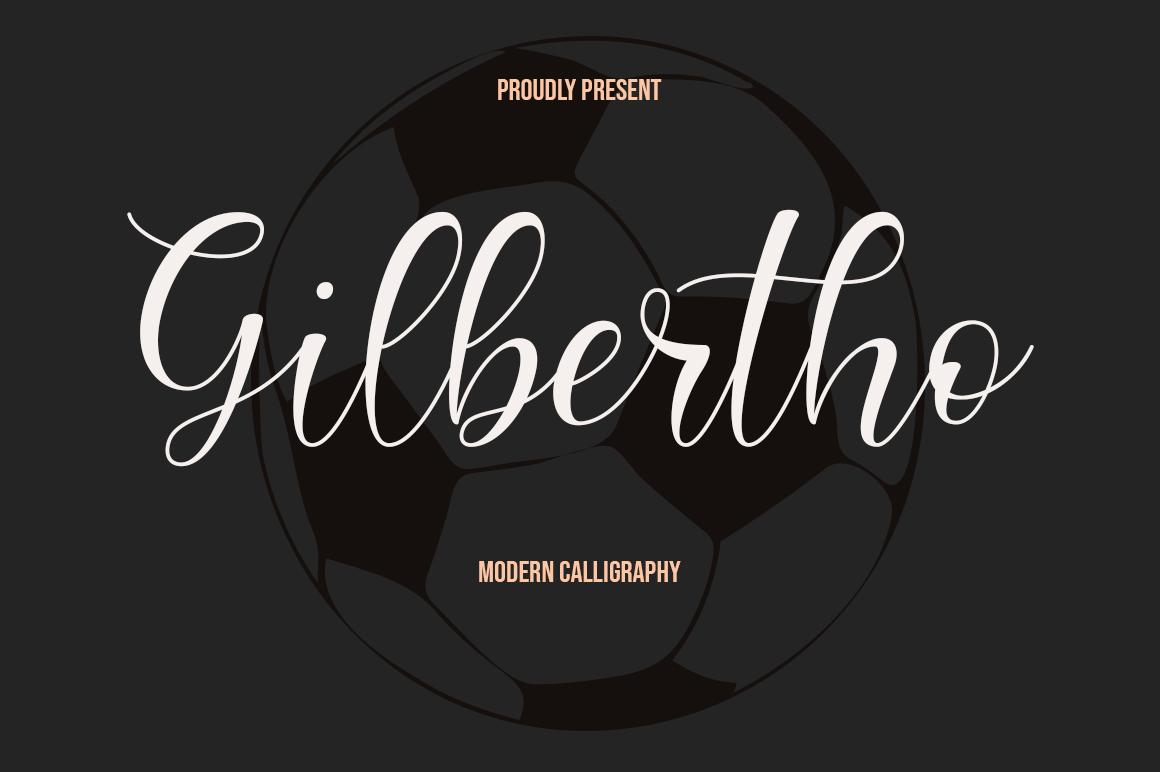
Gilbertho Font Description
Gilbertho is a flowing and exquisite handwritten font. It features a varying baseline, smooth lines, gorgeous glyphs and stunning alternates. It looks amazing on wedding invitations, thank you cards, quotes, greeting cards and every other design which needs a delicate touch.